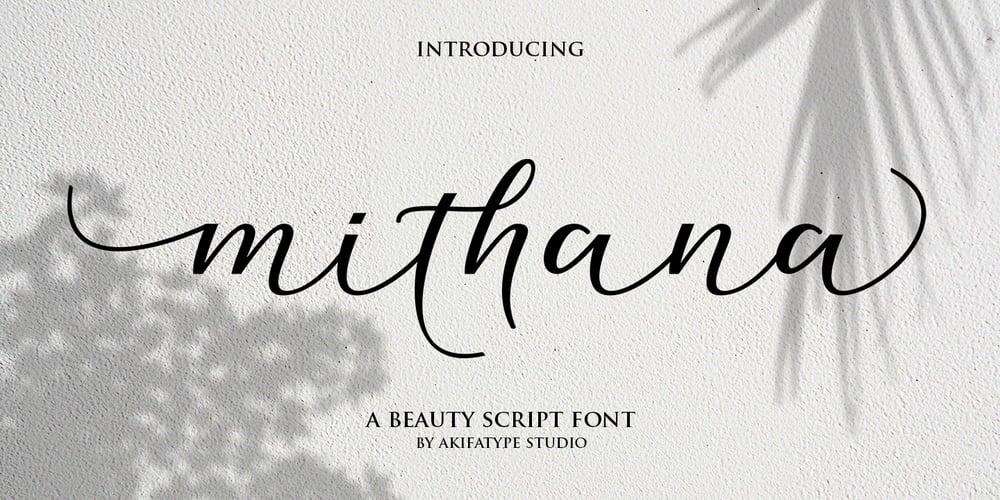
mithana script
mithana script font
mithana script Font Family was designed by Khaled and published by Akifatype. mithana script contains 1 styles and family package options. Mithana Script is highly legible Script typeface, get touch of a bold, classic and fun Vintage Script font, With glyphs and opentype features with stylistic alternates. Can be used for various purposes. such as posters, t-shirt, signage, logos, news, badges etc. To enable the OpenType Stylistic alternates, you need a program that supports OpenType features such as Adobe Illustrator CS, Adobe Indesign & CorelDraw X6-X7, Microsoft Word 2010 or later versions. Mithana Script is coded with PUA Unicode, which allows full access to all the extra characters without having special designing software. Mac users can use Font Book , and Windows users can use Character Map to view and copy any of the extra characters to paste into your favourite text editor/app